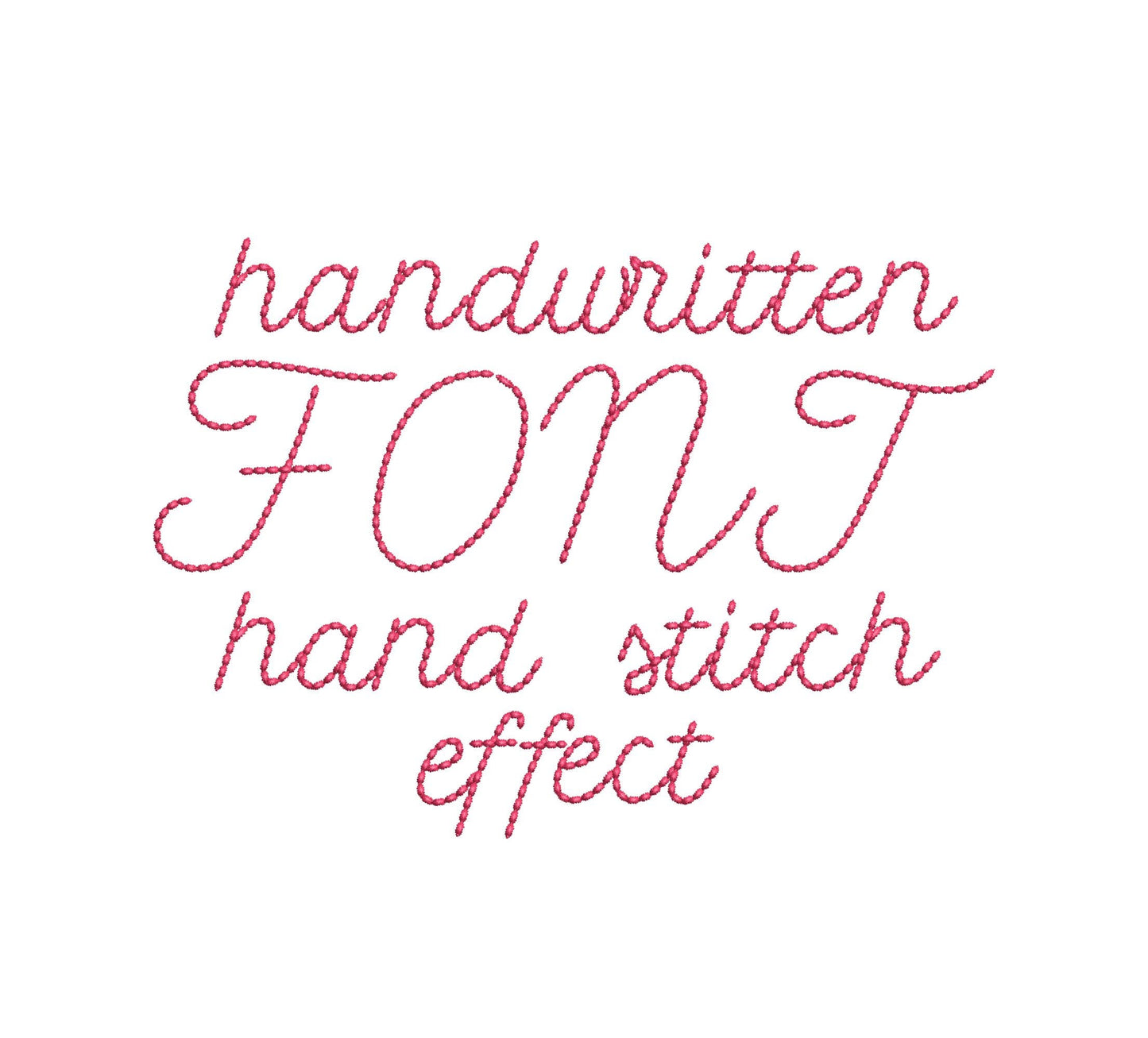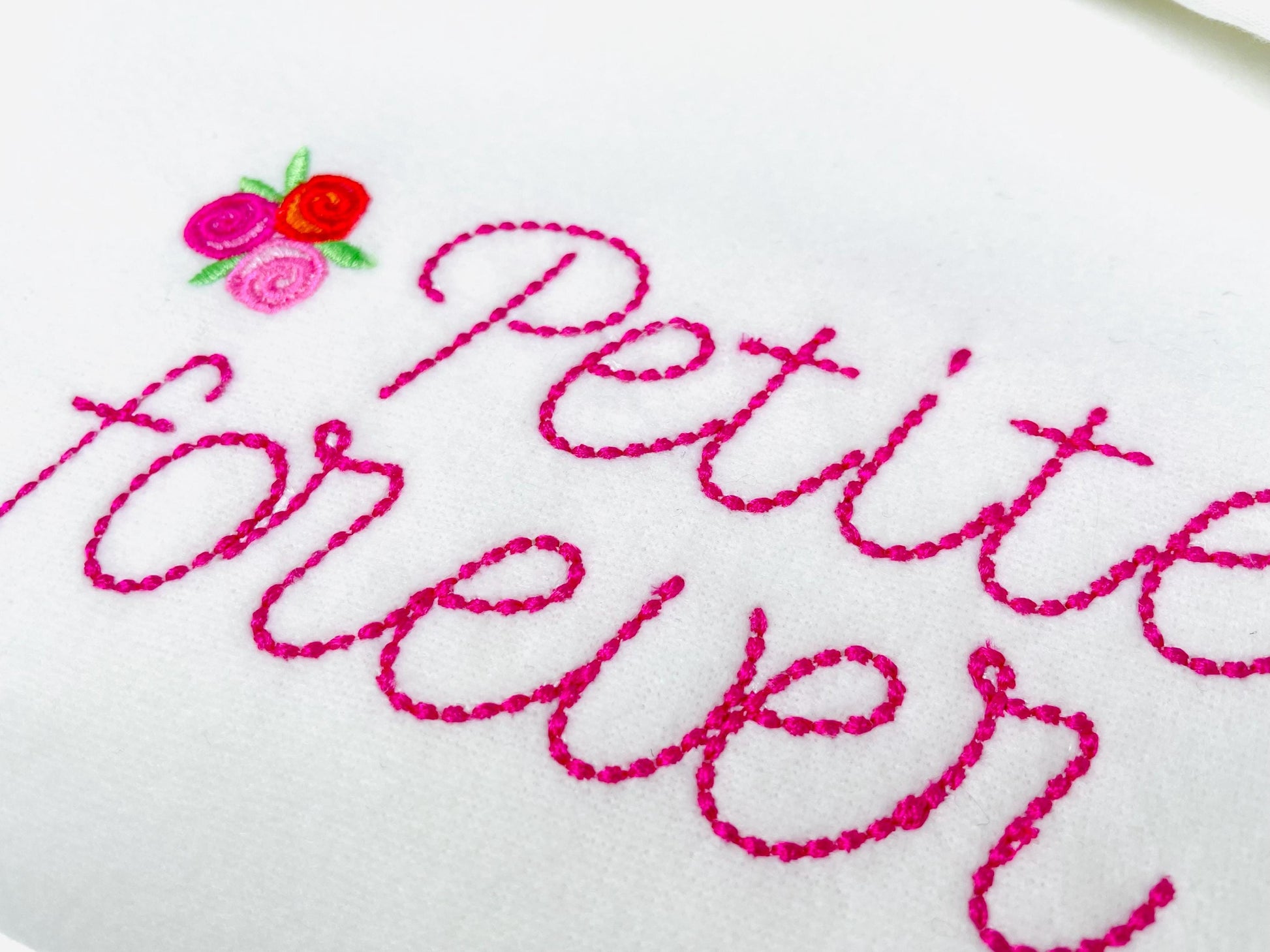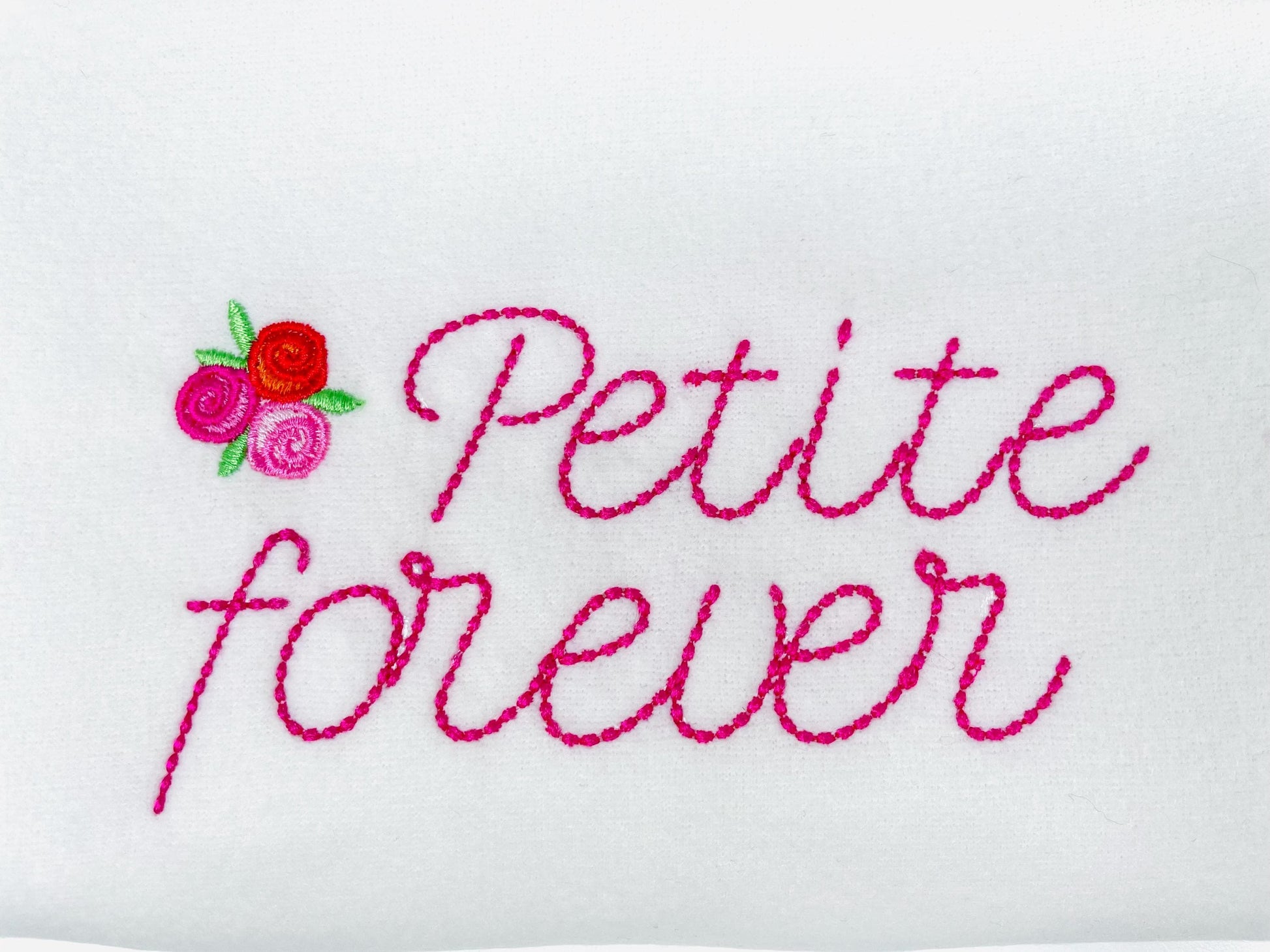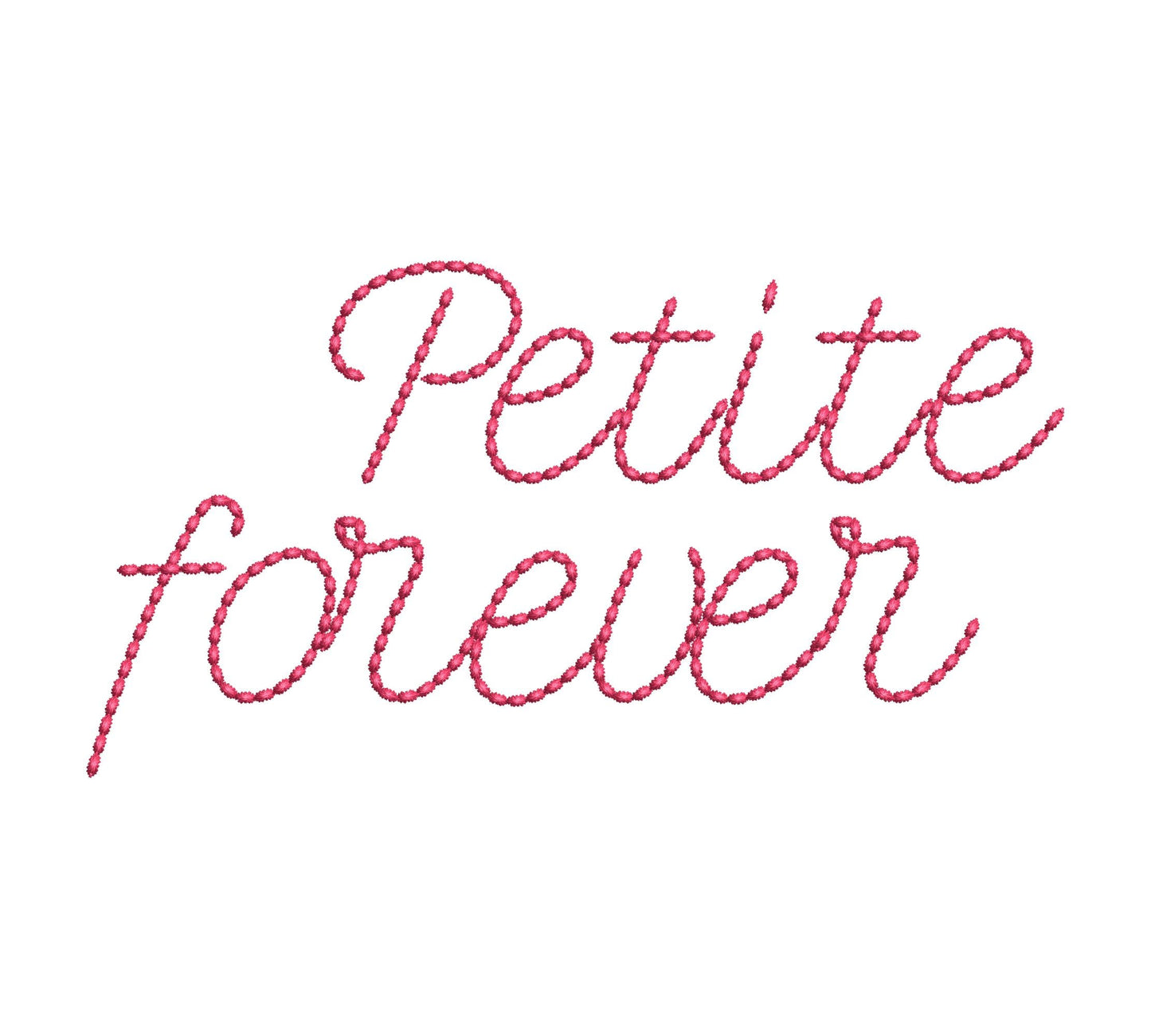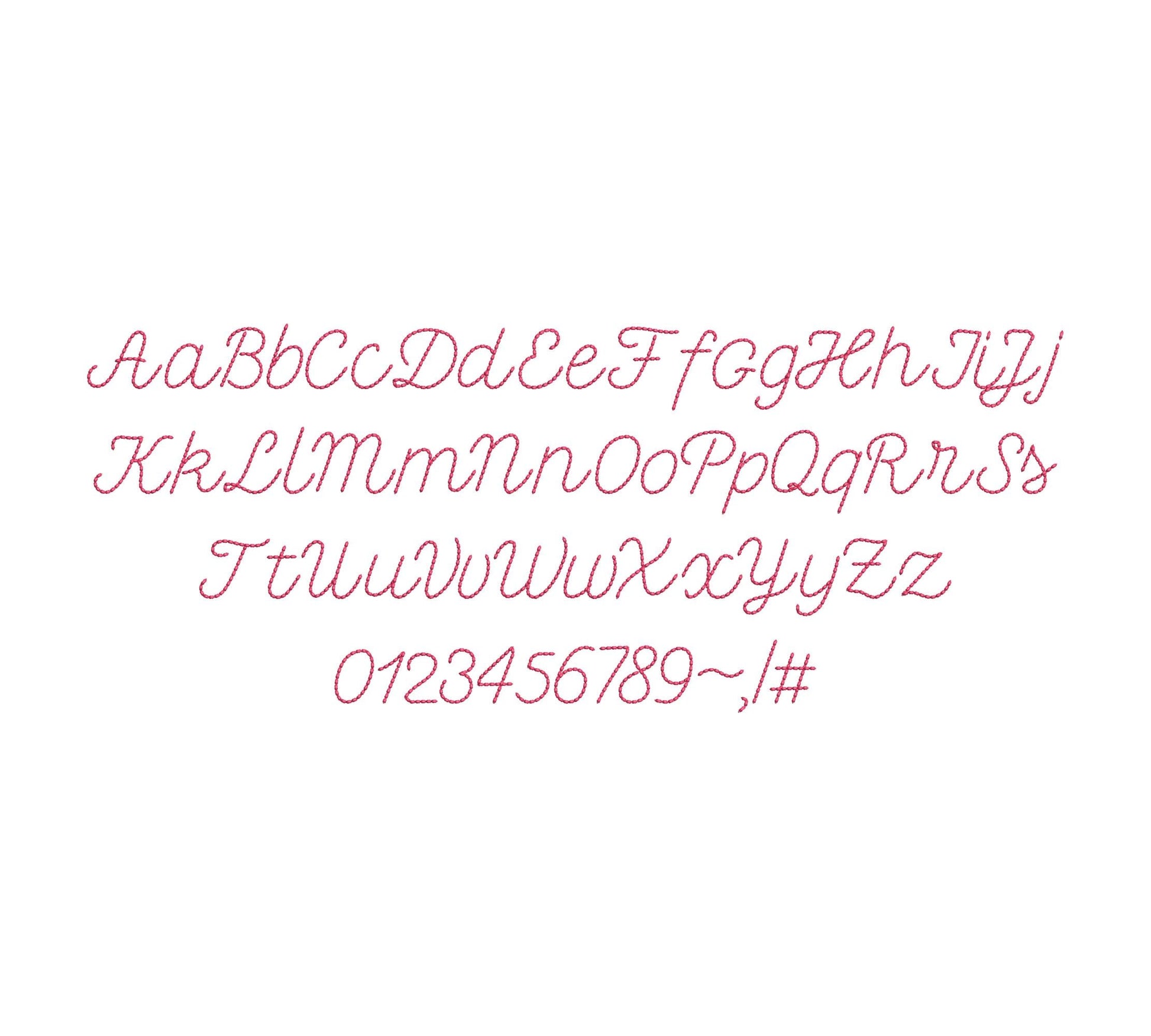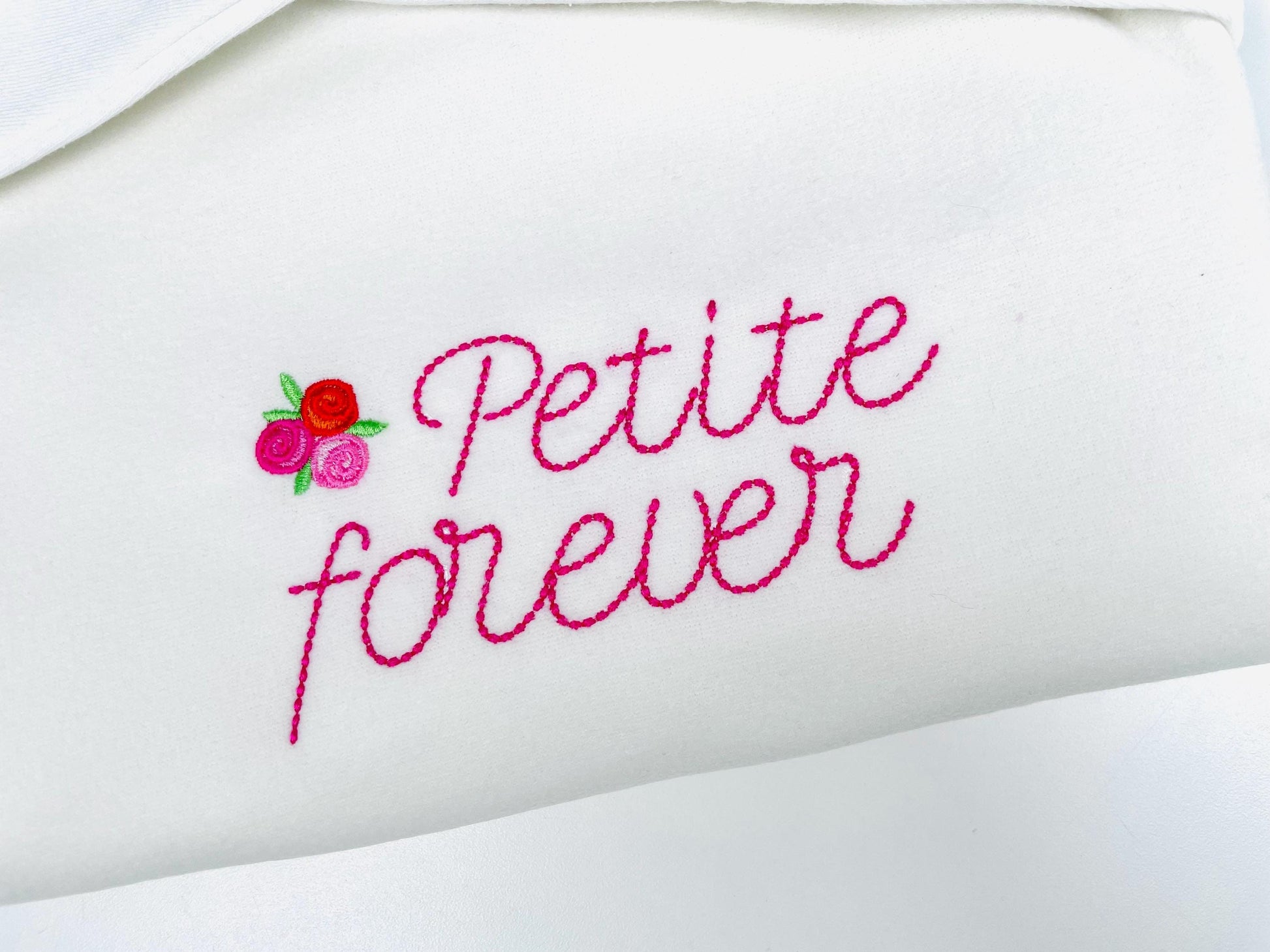
Hand Stitch Effect Font Petite
Or click to open the linkPetite, a handwritten script with a hand-stitched look. Sweet for kids' names, monograms and small sayings.
Uppercase and lowercase letters, numbers 0 to 9 and punctuation, in six sizes: 0.8, 1, 1.2, 1.5, 1.9 and 2.3 inches.
- Hand stitch look script font
- Uppercase and lowercase letters, numbers 0-9, punctuation